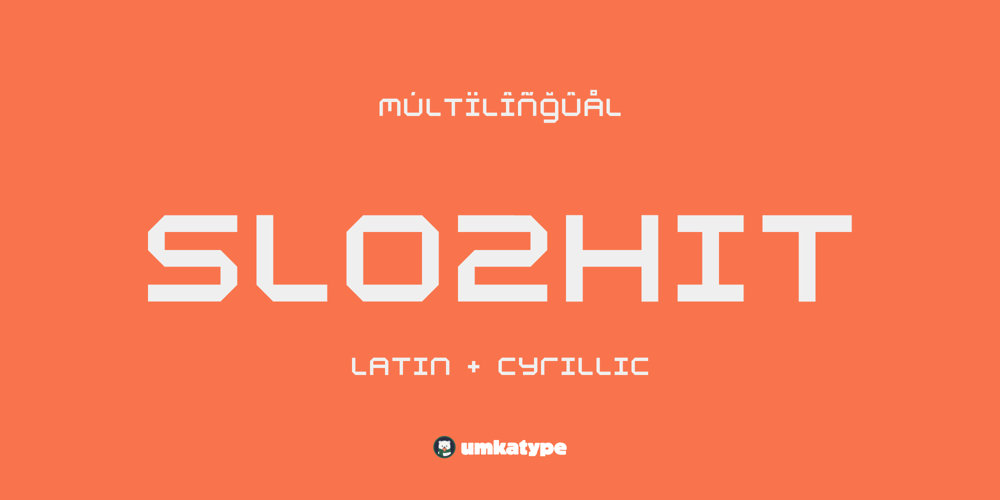
Slozhit
Slozhit font
Slozhit Font Family was designed by Alper Çakıcı and published by Umka Type. Slozhit contains 1 styles and family package options. Slozhit is a folded and multilingual font. It is ideal for both digital and print use. It features full support for the Cyrillic language, allowing for seamless multilingual communication. Slozhit’s unique design combines classic proportions with a contemporary feel, making it stand out from other display fonts.It supports 96 Languages:Belarusian, Bosnian, Bulgarian, Chechen, Macedonian, Russian, Serbian, Uzbek, Afrikaans, Albanian, Asu, Basque, Bemba, Bena, Breton, Catalan, Chiga, Colognian, Cornish, Croatian, Czech, Danish, Dutch, English, Estonian, Faroese, Filipino, Finnish, French, Friulian, Galician, Ganda, German, Gusii, Hungarian, Icelandic, Inari Sami, Indonesian, Irish, Italian, Jola-Fonyi, Kabuverdianu, Kalenjin, Kinyarwanda, Latvian, Lithuanian, Lower Sorbian, Luo, Luxembourgish, Luyia, Machame, Makhuwa-Meetto, Makonde, Malagasy, Maltese, Manx, Morisyen, Northern Sami, North Ndebele, Norwegian Bokmål, Norwegian Nynorsk, Nyankole, Oromo, Polish, Portuguese, Quechua, Romanian, Romansh, Rombo, Rundi, Rwa, Samburu, Sango, Sangu, Scottish Gaelic, Sena, Serbian, Shambala, Shona, Slovak, Soga, Somali, Spanish, Swahili, Swedish, Swiss German, Taita, Teso, Turkish, Upper Sorbian, Uzbek (Latin), Volapük, Vunjo, Welsh, Western Frisian, Zulu